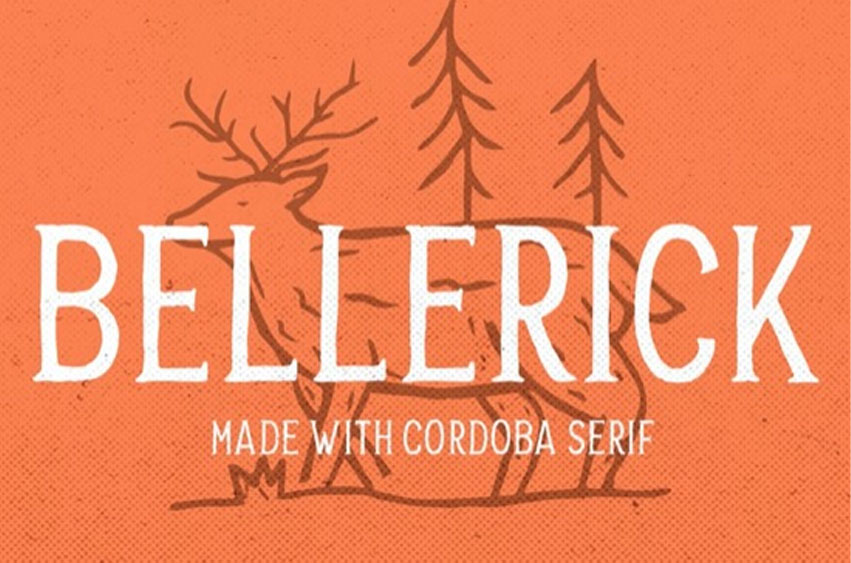
Cordoba Serif Font
Cordoba Serif Font is a glamorous and vintage serif font, epitomizes modern and sophistication chic with its refined lines and sleek details. It’s a beautiful Serif font with a hand-drawn feel. This item is really perfect for those who need a typeface, especially for a logo, clothing, invitation, branding, packaging, advertising, etc.
This typeface is available in uppercase, lowercase, punctuation, symbols and numbers, alternate style, ligatures, etc. It is also multilingual and is already PUA encoded.